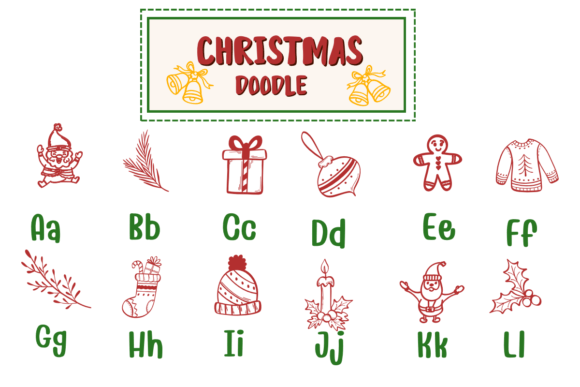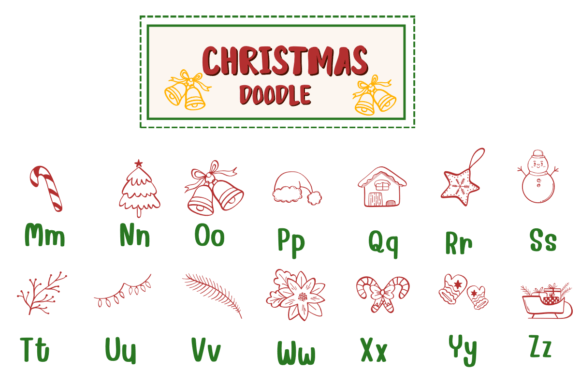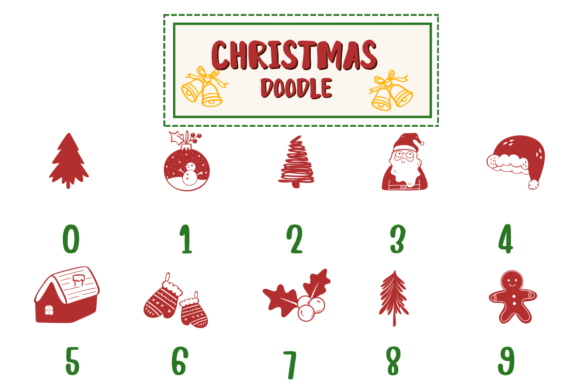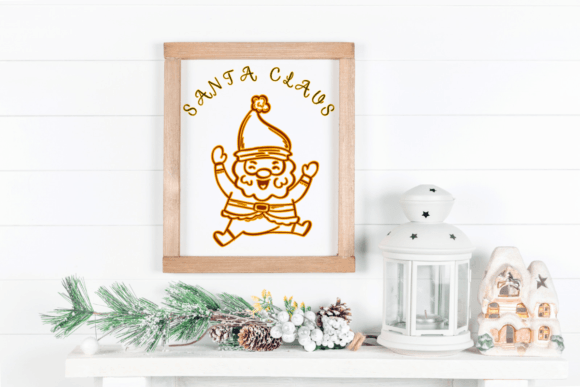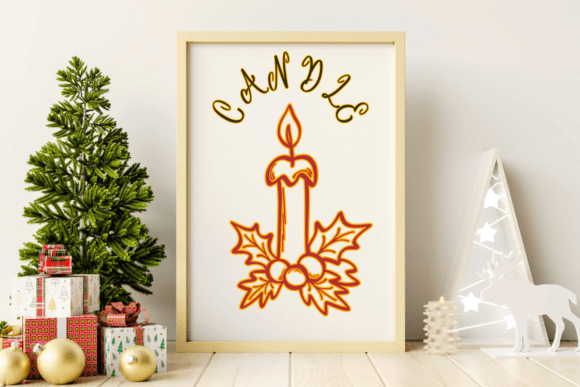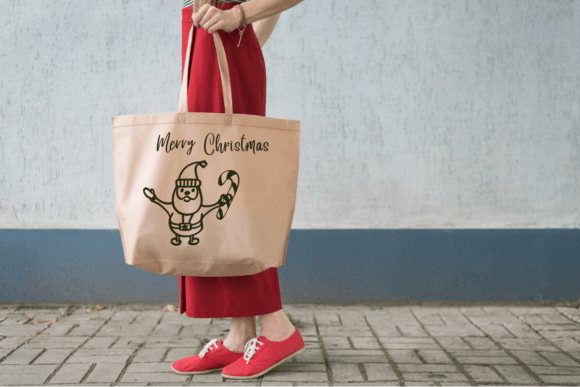
Deck the Halls with Christmas Cheer
It’s the most wonderful time of the year, and as designers, we’re always looking for ways to make our creations stand out during the holiday season. Whether it’s a festive card, a holiday advertisement, or a fun design for social media, we want to make sure our work captures the magic of Christmas.
That’s where the Christmas Doodle Font comes in – a delightful dingbat font featuring a range of charming Christmas icons that add a touch of holiday cheer to any design. From snowflakes and Christmas trees to Santa hats and presents, this font is the perfect way to bring some festive fun to your work.
For designers, the Christmas Doodle Font is a valuable resource that can help take our designs to the next level. It’s a unique and creative way to express our holiday spirit, and with its versatility and charm, it’s sure to be a hit with clients and customers alike.
Christmas Doodle Font Key Features
- Font Family: A set of festive and playful fonts designed specifically for the holiday season, including bold and regular styles.
- Character Set: Includes a wide range of characters, including uppercase and lowercase letters, numbers, punctuation, and special symbols, as well as festive icons and decorations.
- Unique Characteristics: Features a hand-drawn, doodle-like style with intricate details and textures, adding a touch of whimsy and festivity to designs.
Designer Review: Christmas Doodle Font
Overall, I’m impressed with the whimsical and playful feel of the Christmas Doodle Font. ✨ The intricate doodle illustrations add a unique touch to holiday designs, and the font’s versatility makes it suitable for a wide range of applications, from social media graphics to packaging.
One of the standout features of this font is its ability to evoke a sense of nostalgia and childhood wonder. ✨ The doodle illustrations are reminiscent of handmade crafts, which can add a personal and sentimental touch to designs.
- ⚠️ The font may be too playful for more formal or professional designs, such as business cards or corporate reports.
- ⚠️ Some users may find the doodle illustrations too busy or distracting, particularly when used in large quantities.
In terms of overall impression, I would give the Christmas Doodle Font 4 out of 5 stars. While it has some limitations, its unique charm and versatility make it a great choice for designers looking to add a touch of whimsy to their holiday designs.
Here are some tips to get the most out of the Christmas Doodle Font:
- Use the font in combination with other festive graphics and decorations.
- Use the font to create custom gift tags, invitations, and other holiday materials.
The Christmas Doodle Font is perfect for:
- Creating festive social media graphics.
- Designing holiday cards and invitations.
- Adding a personal touch to gift tags and wrapping paper.